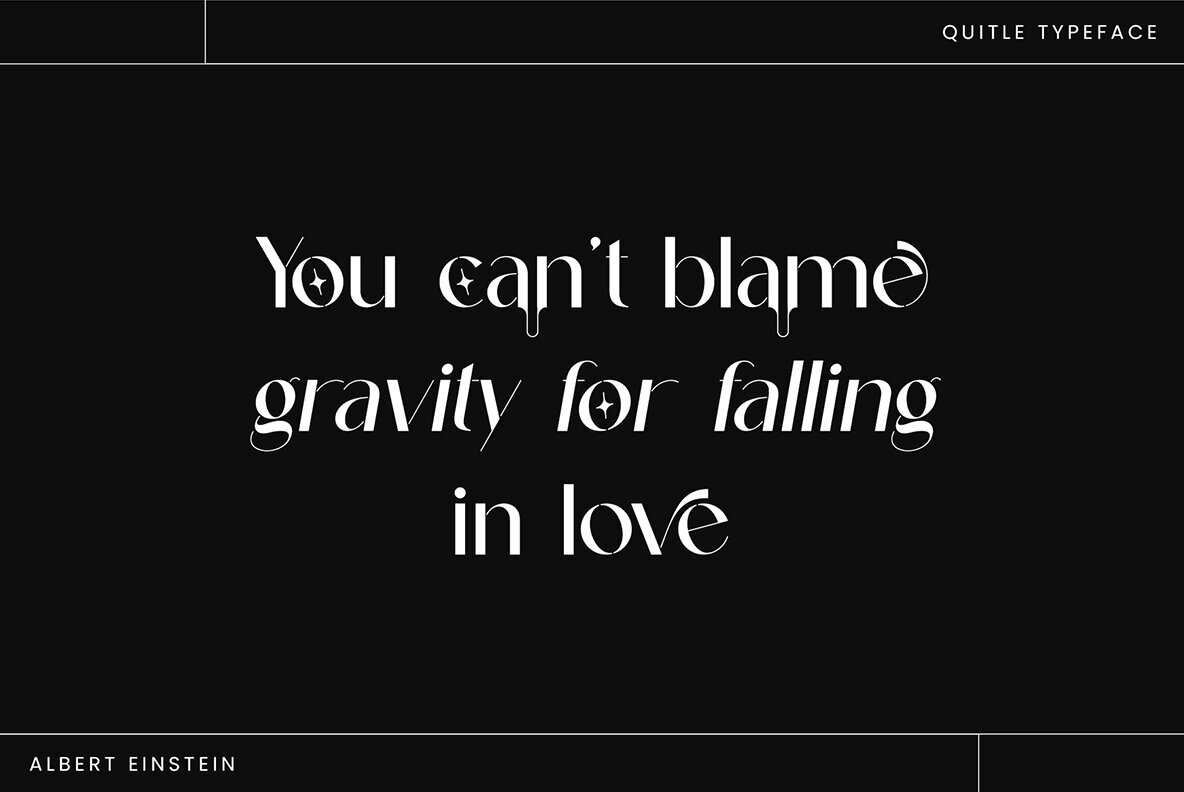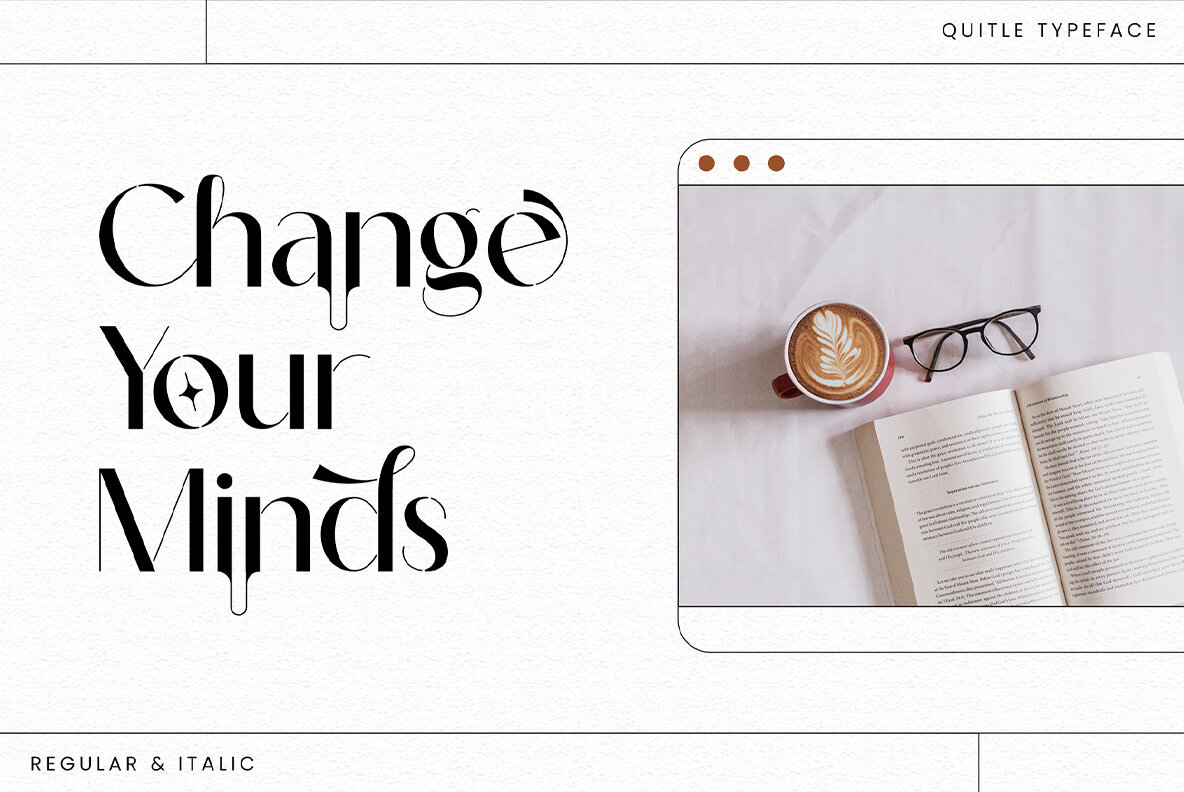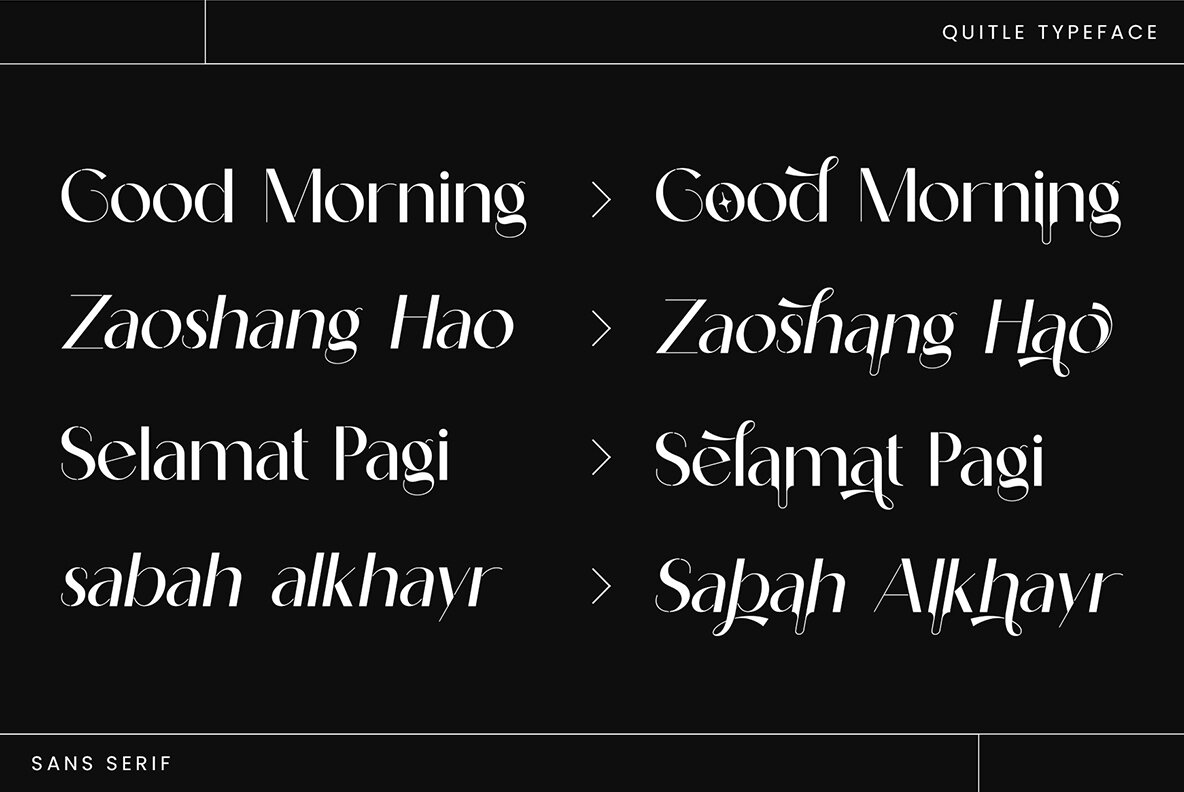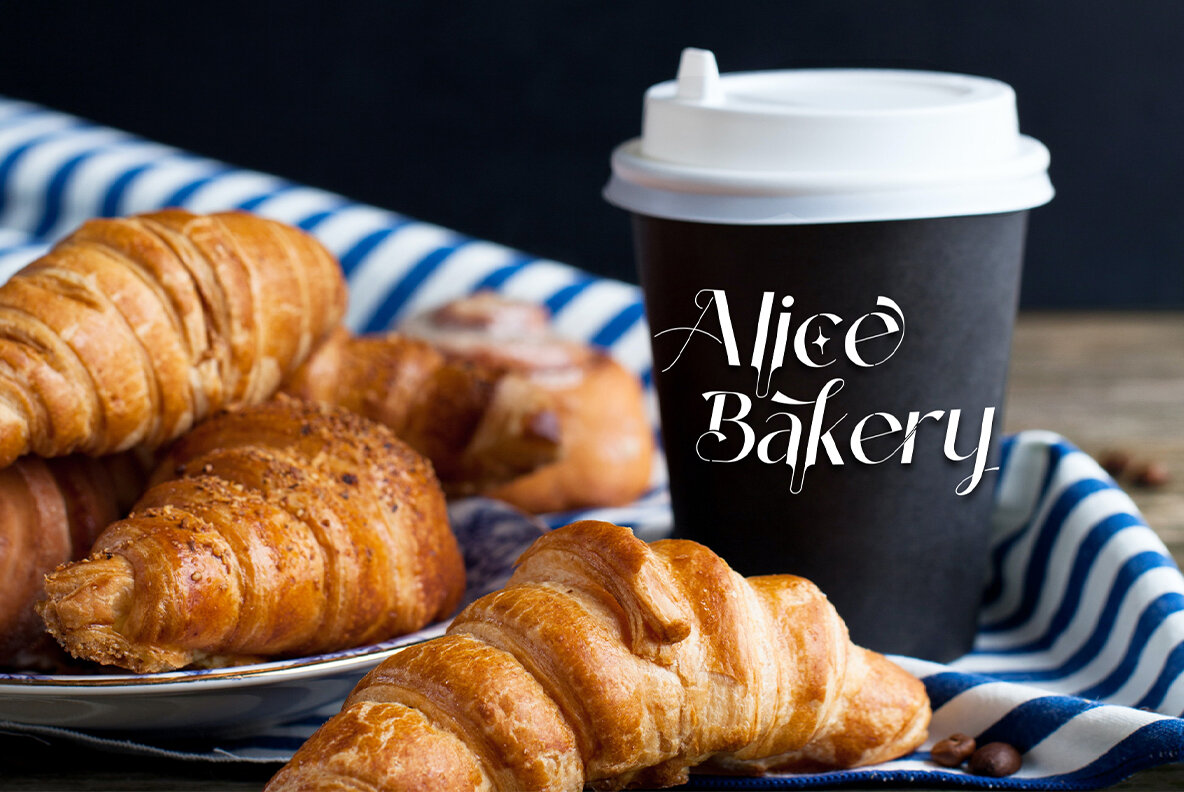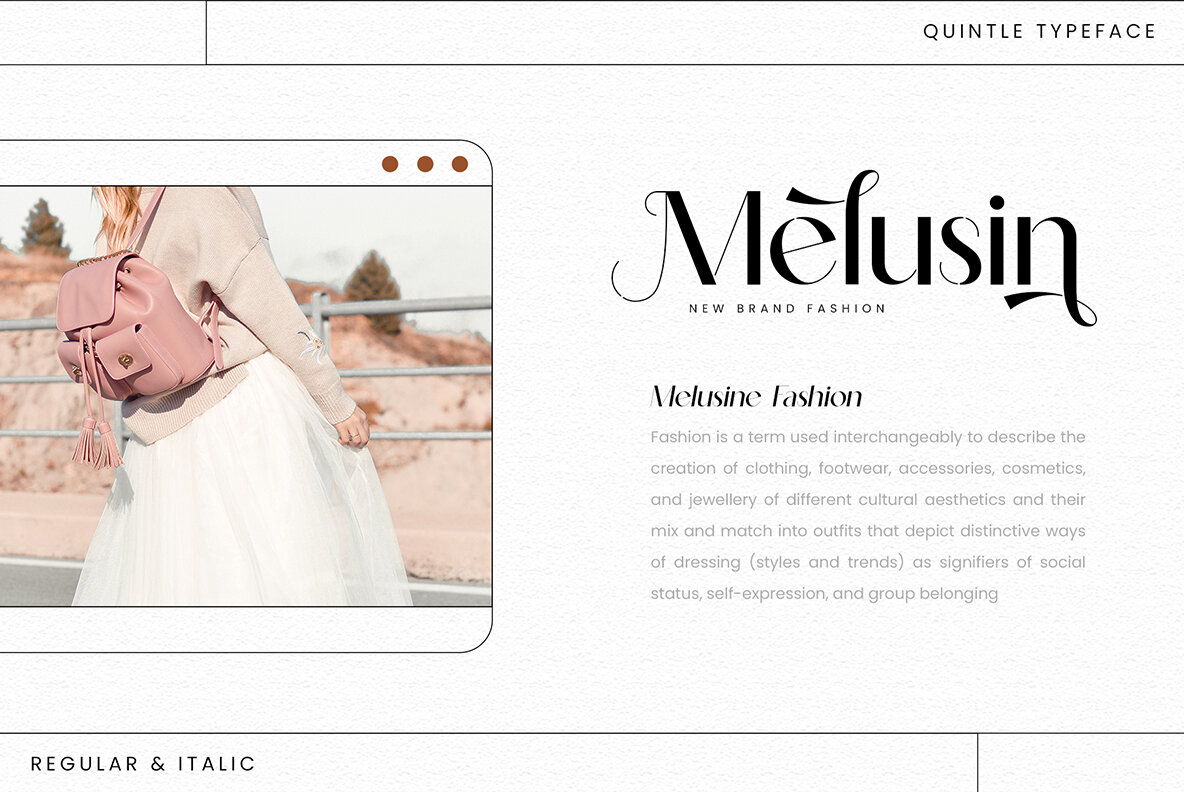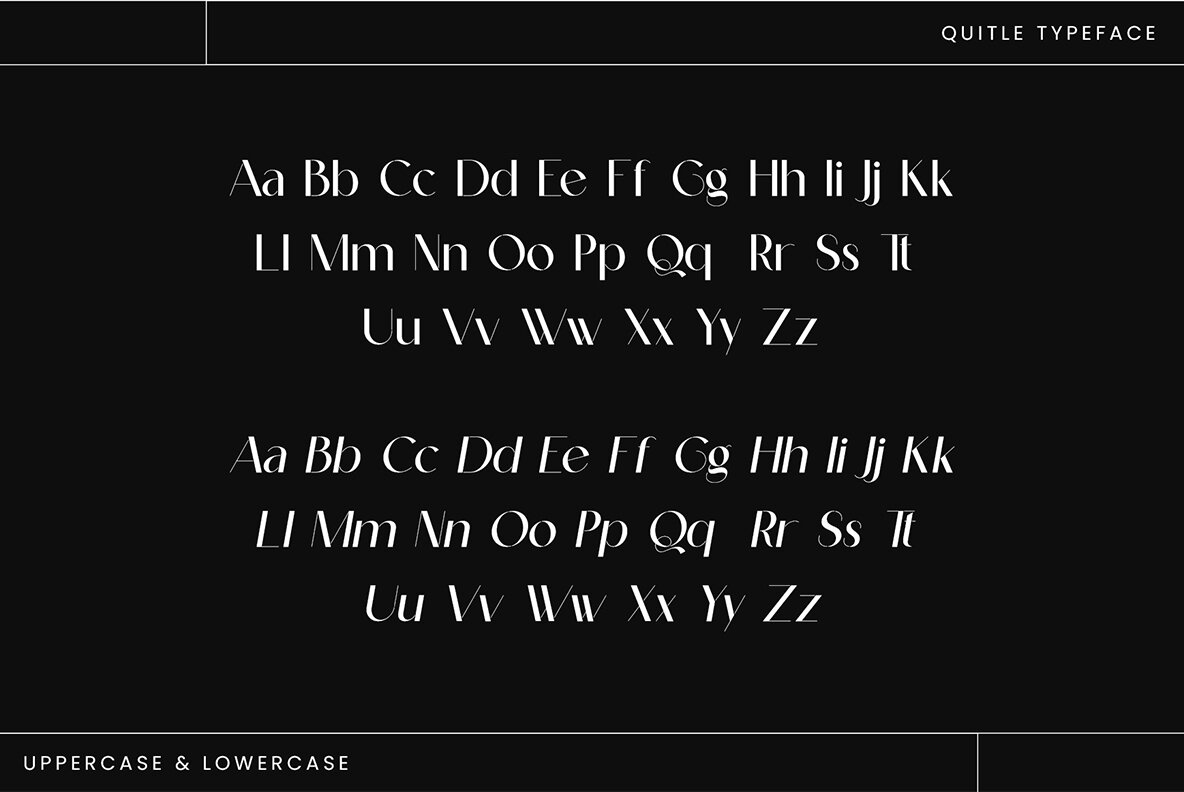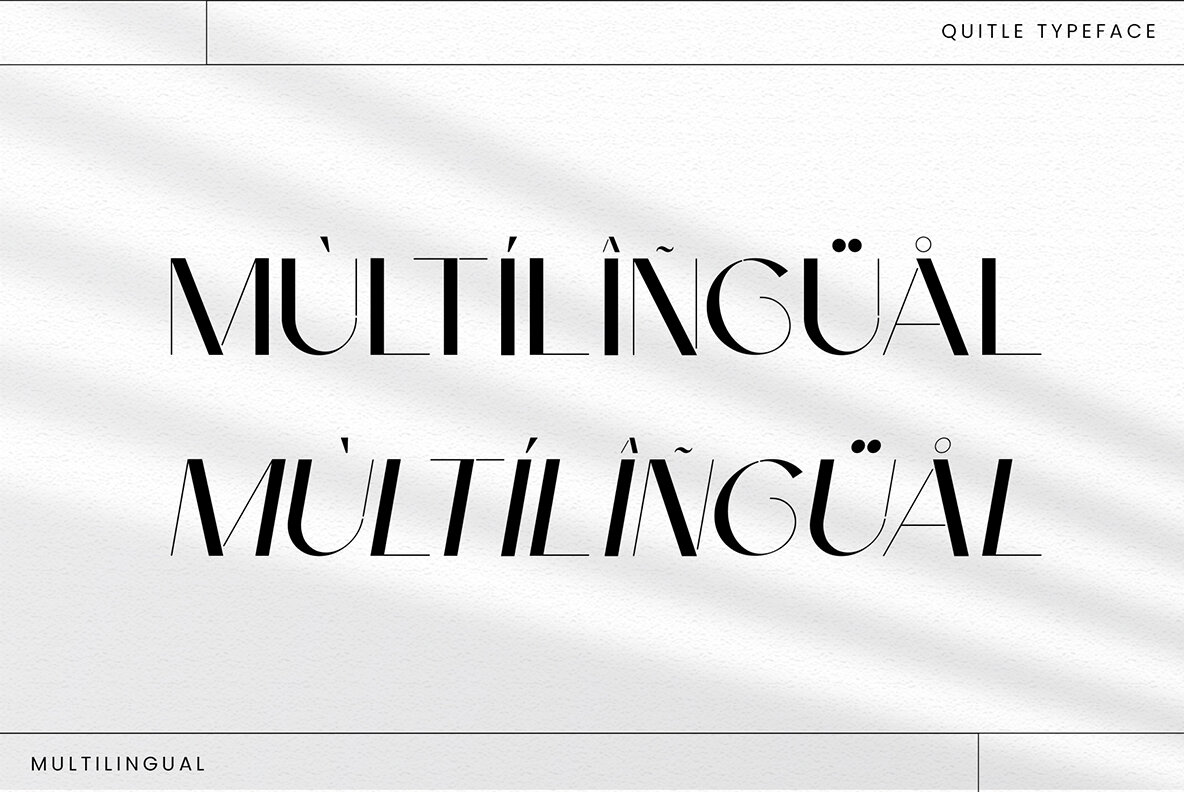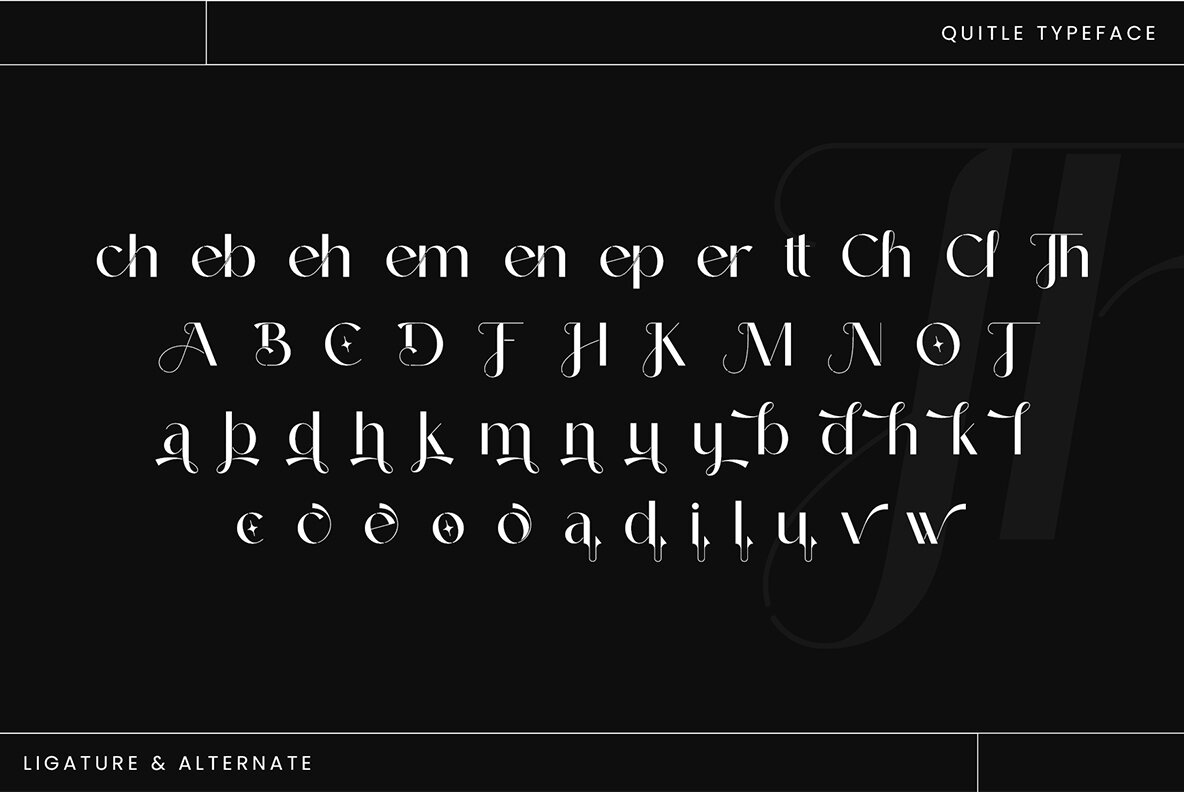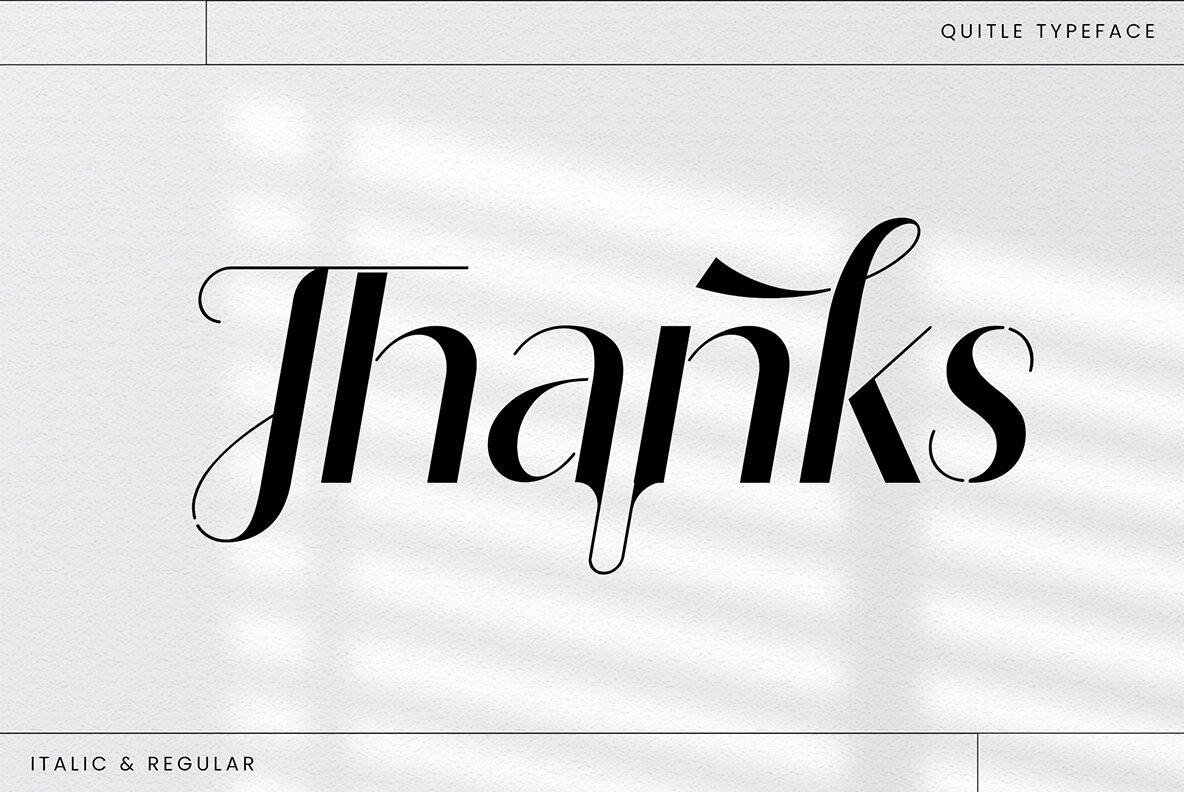
Quitle Font
Quitle Sans Serif is an elegant and smooth typeface that combines regular and italic serif elements. It features beautiful characters, making it ideal for a wide range of applications, including invitation cards, company logos, movie titles, business cards, book titles, and brand names. This subtle sans serif font exudes sophistication and elegance, with its stylish alternations and ligatures perfectly suiting any project.Quitle Sans Serif: Elegant Typography for Sophisticated Design